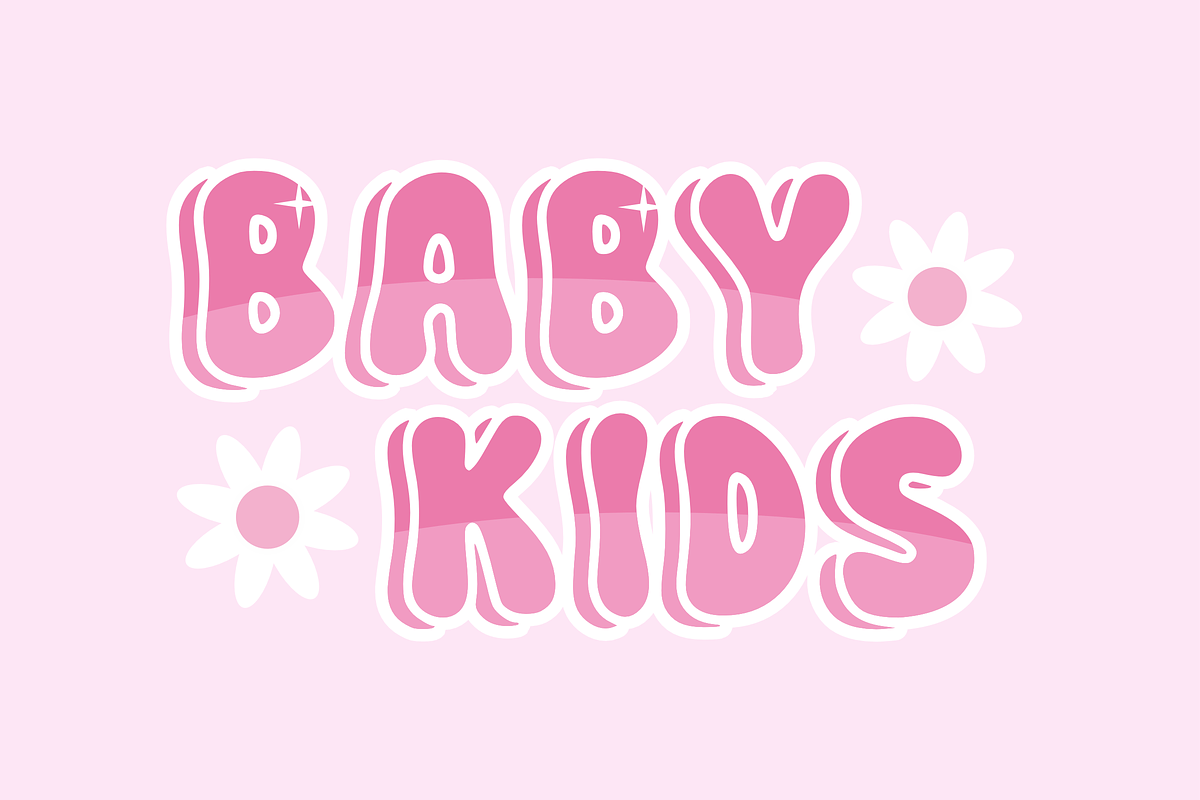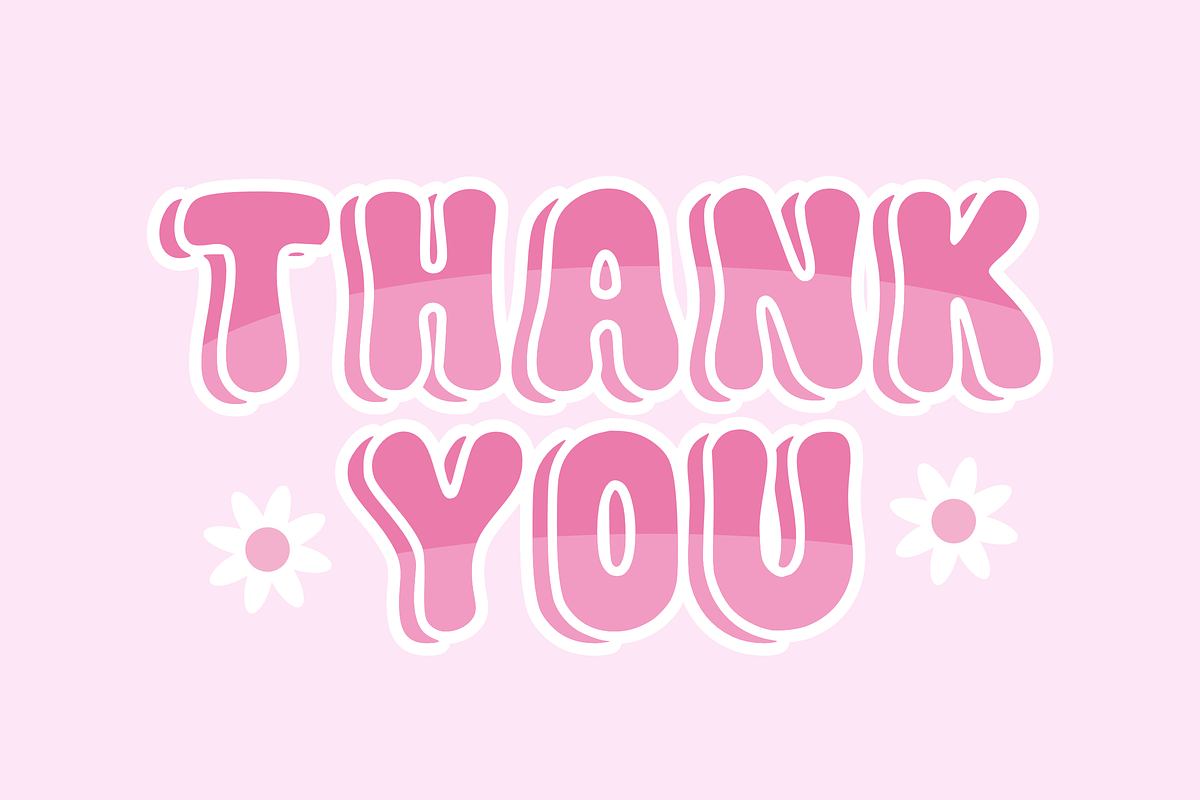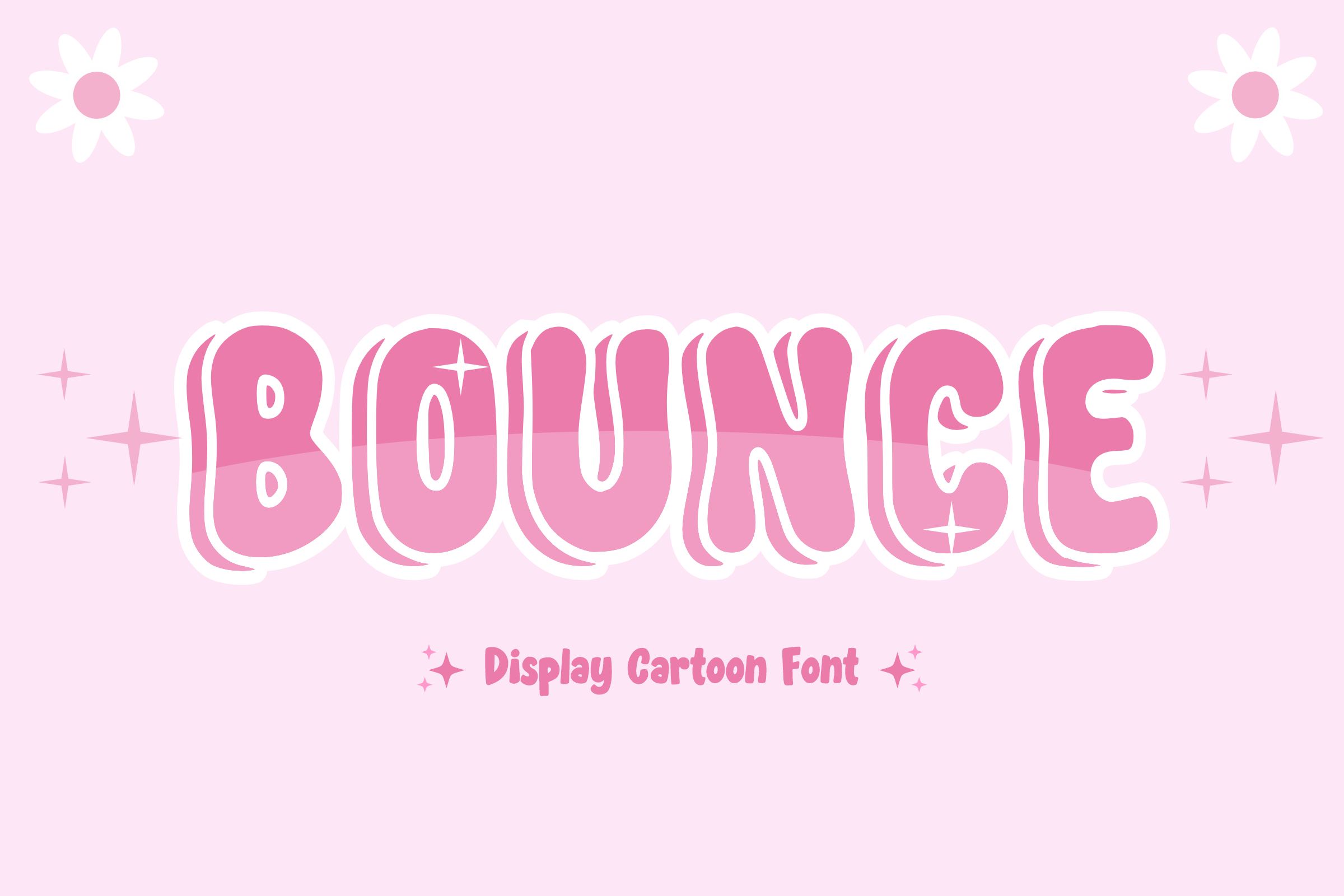
Bounce - Bubble Font Type
Unveiling “Bounce”, a contemporary bubble-ball typeface, artfully designed with adorable characters that are instantly identifiable. It lends itself exquisitely to the sublimation design process on apparel like t-shirts, accessories such as mugs and tote bags, in addition to enhancing the appeal of animations and comic titles. Let Bounce set your creativity free and breathe life into your ideas. Show your appreciation for our craft by liking and following our work, which continues to motivate us into generating more innovative and one-of-a-kind fonts. Thank you!